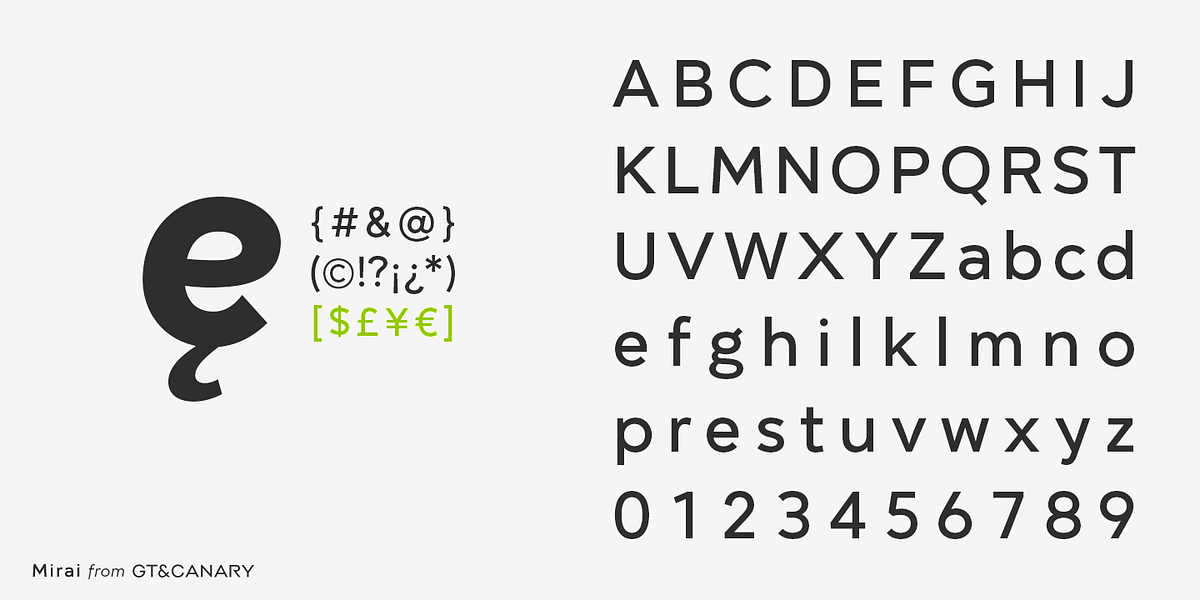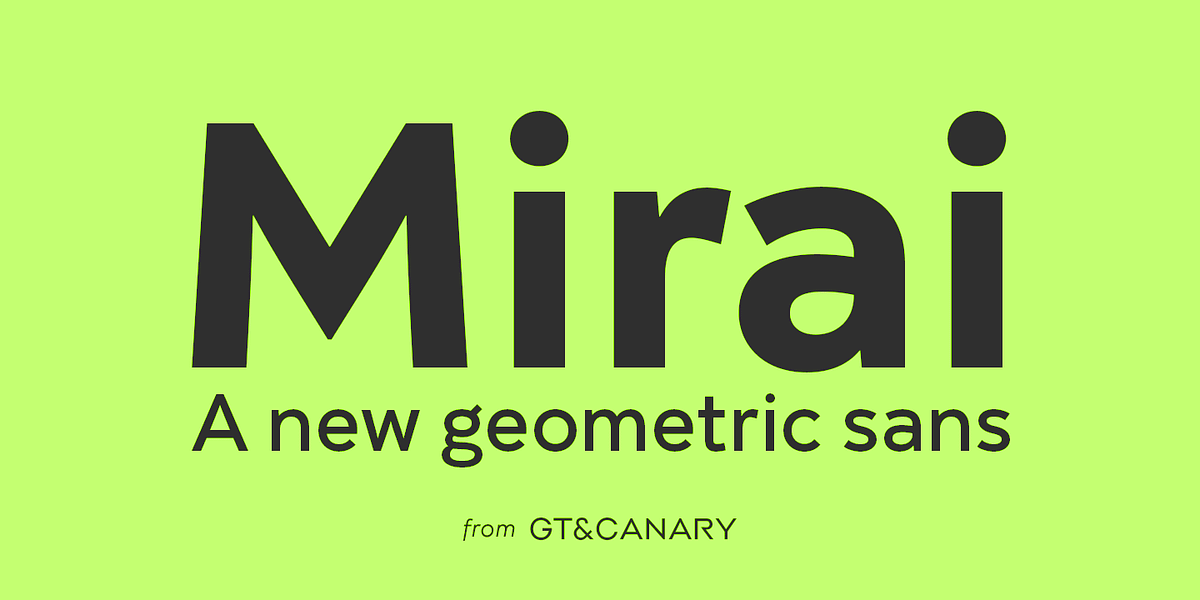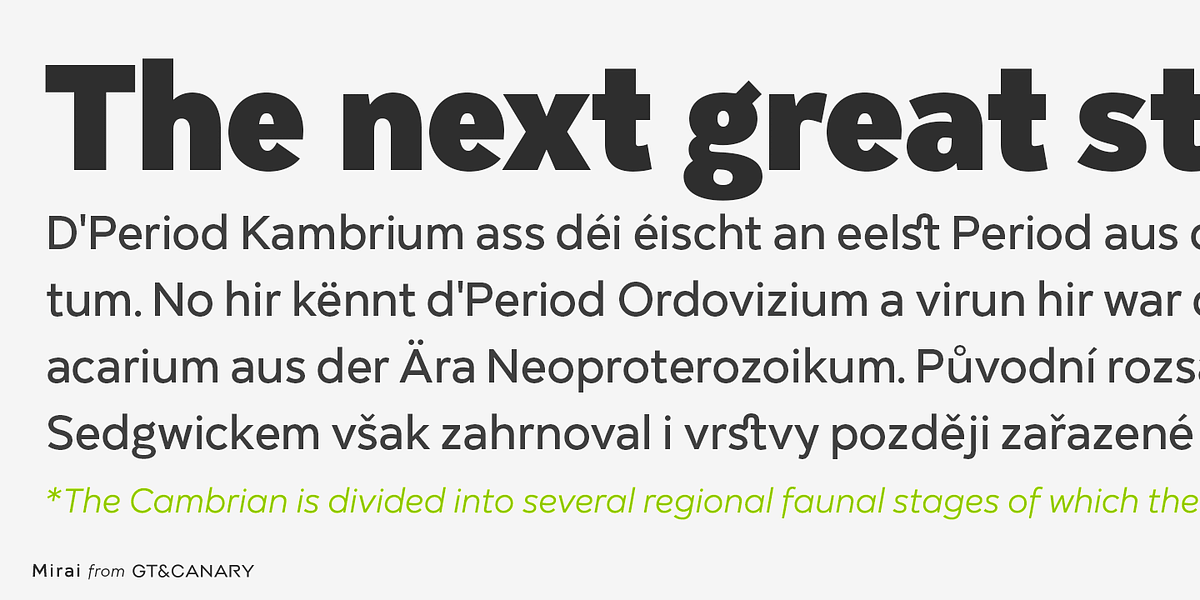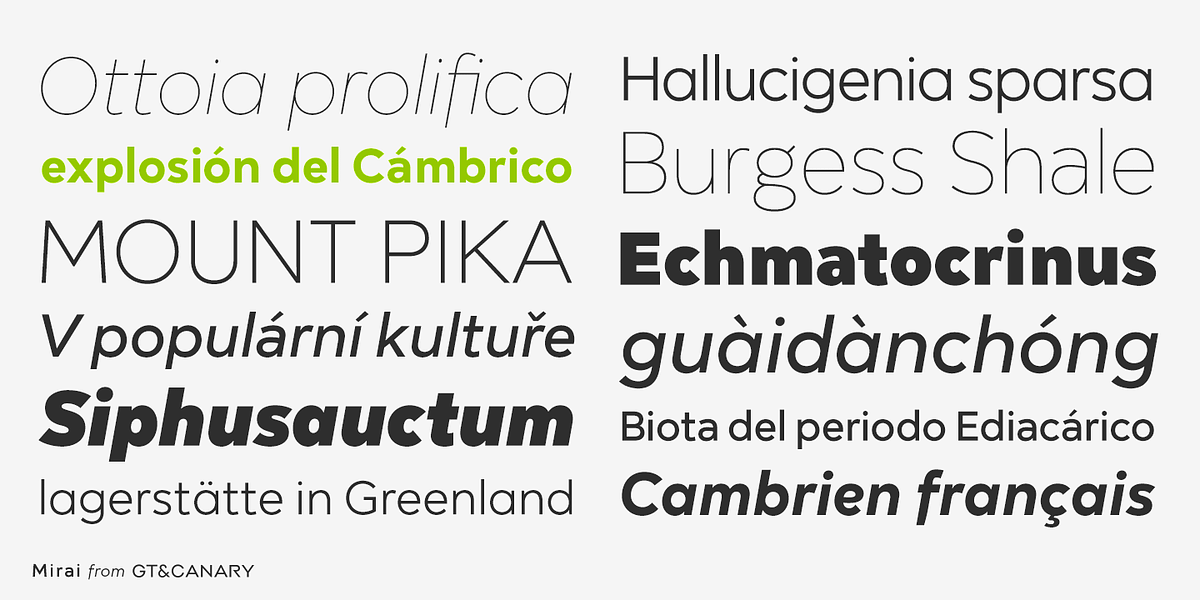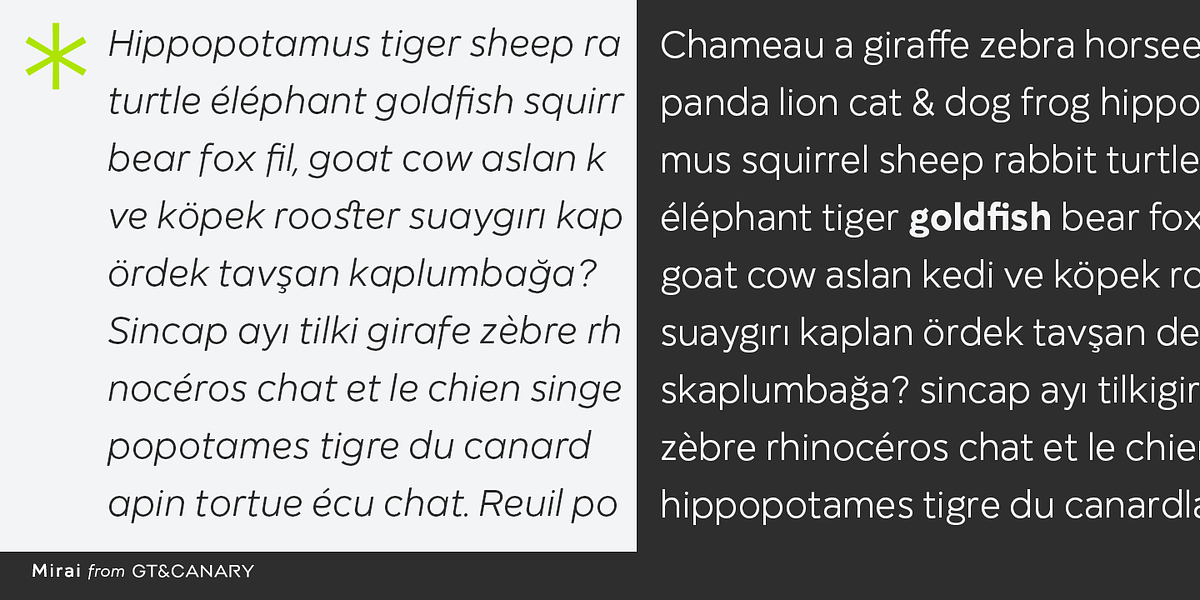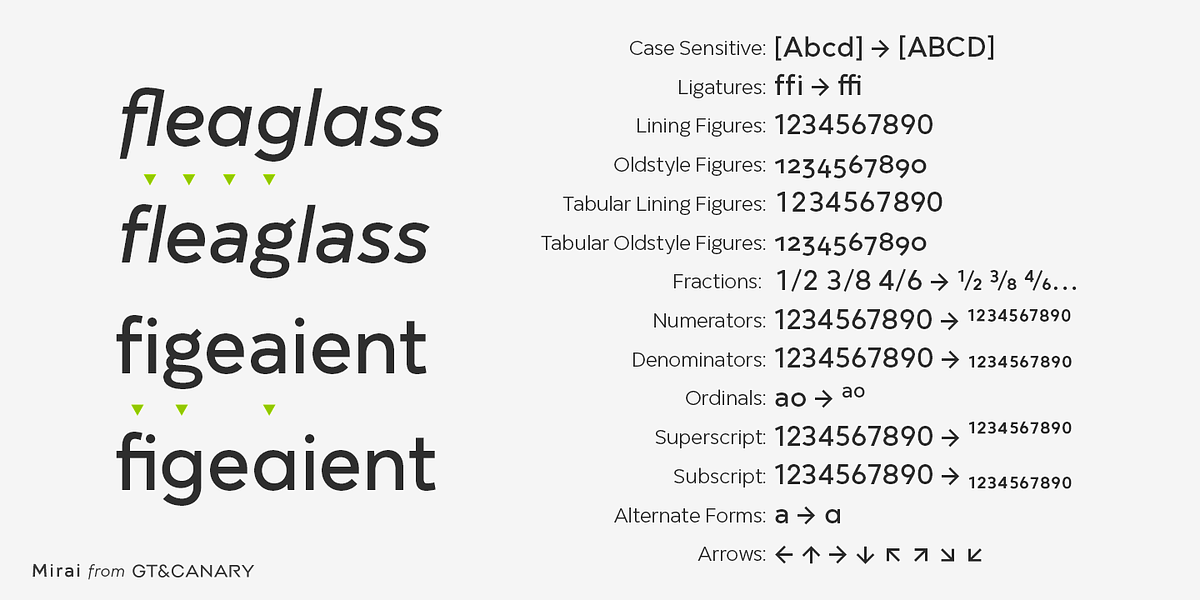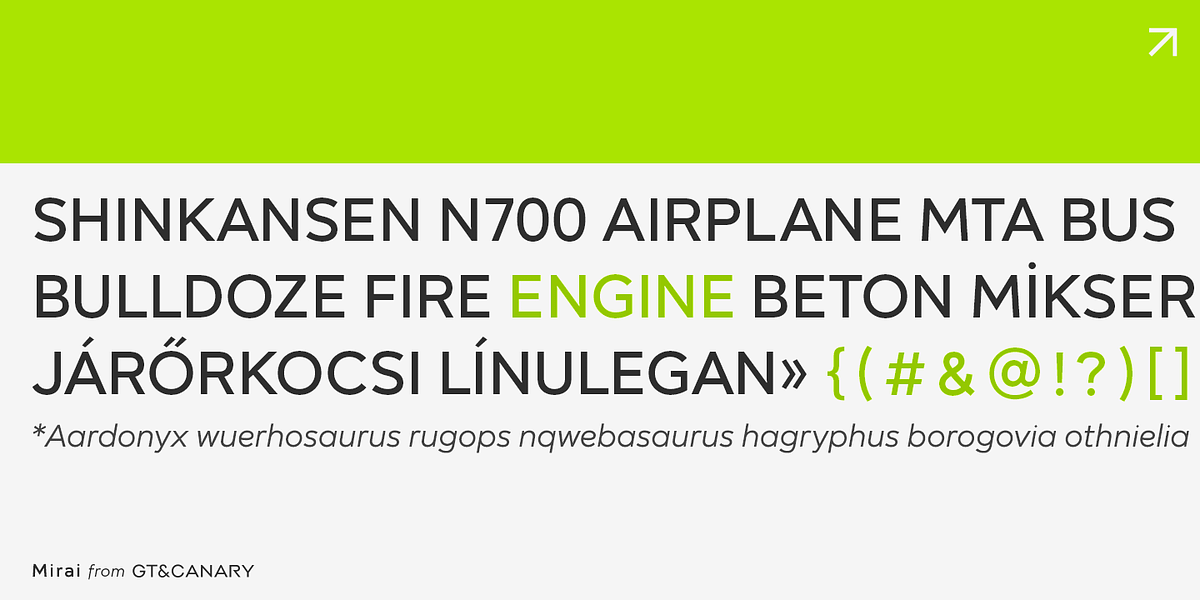
Mirai
Mirai is a geometric sans-serif font family designed for modern applications. Its clean lines and high x-height ensure excellent legibility. The font family offers six weights from Thin to Black, each with matching italics, making it versatile for various design projects, including web, print, packaging, and signage.